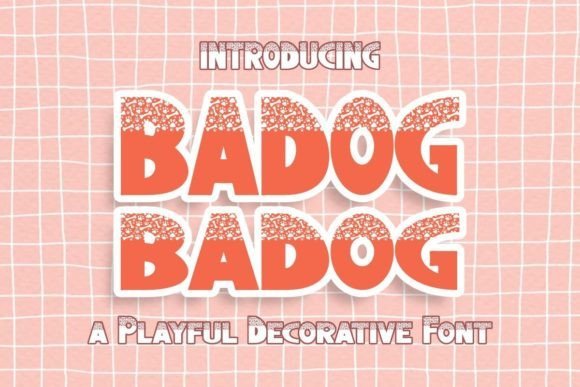
Unleash Your Creativity with Badog Font
Have you ever stared at a blank canvas, waiting for inspiration to strike? Maybe you’re a designer looking for the perfect font to bring your latest project to life. I know I have! For me, it usually starts with a burst of creativity sparked by something as simple as a cute dog video or a friend’s adorable pup. The idea hits, and suddenly I’m on a mission to create something amazing.
That’s where the Badog Font comes in – a vibrant and bold decorative font that’s sure to capture the hearts of dog lovers everywhere. Its unique, partially paw pattern makes it the paw-fect choice for designers looking to add a touch of whimsy to their designs. Whether you’re printing on shirts, mugs, or creating digital art, Badog Font is a valuable addition to your design arsenal.
Badog Font Key Features
- Unique Characteristics: The font features a unique blend of modern and vintage elements, with distinctive letterforms and a highly legible design.
Badog Font Review
As a designer, I’ve had the chance to play around with Badog Font, and I must say it’s an interesting one. ✨ The font’s unique blend of modern and vintage elements caught my attention, and I think it could work well in certain contexts.
- ✨ The font’s bold and playful feel makes it perfect for titles, headings, or other emphasis-based typography.
- ✨ The subtle texture and imperfections give the font a human touch, which can add character to your designs.
- ✨ The font is highly customizable, allowing you to tweak the size, color, and other properties to fit your design needs.
- ⚠️ The font’s readability can be a concern in smaller sizes, as the bold lines and texture may become overwhelming.
- ⚠️ The font’s aesthetic may not appeal to everyone, and it’s not suitable for formal or professional designs.
- ⚠️ The font is not optimized for certain languages, which may result in alignment and spacing issues.
While Badog Font has its limitations, I think it’s a great option for designers who want to add some personality to their projects. With careful selection and customization, this font can shine in the right context. However, it’s essential to consider the target audience and design requirements before using it.
Tips for Getting the Most Out of Badog Font
To get the most out of Badog Font, use it in bold and italic styles to add emphasis to your text. You can also use it in combination with other fonts to create a unique and modern look.
For best results, use Badog Font in headings and titles to draw attention to important information.
Badog Font is suitable for:
- Modern branding and logos
- Business cards and resumes
Alternatives to Badog Font for Designers
Monserrat Font is a sans-serif font that was designed to evoke the feeling of urban landscapes. It’s a great alternative to Badog Font for designers who need a clean and modern look. Montserrat Font has a similar geometric feel to Badog Font but with a more rounded edge. It’s perfect for use in headings, titles, and body text in modern designs.
Lato Font is a modern sans-serif font that was designed to be highly legible and versatile. It’s a great alternative to Badog Font for designers who need a font that works well in a variety of contexts. Lato Font has a similar feel to Badog Font but with a more rounded and friendly appearance. It’s perfect for use in body text, headings, and titles in modern designs.
Open Sans Font is a modern sans-serif font that was designed to be highly legible and versatile. It’s a great alternative to Badog Font for designers who need a font that works well in a variety of contexts. Open Sans Font has a similar feel to Badog Font but with a more open and airy appearance. It’s perfect for use in body text, headings, and titles in modern designs.
Is the Badog Font optimized for web use?
Yes, the Badog Font is optimized for web use, featuring a high level of legibility and readability on various screen resolutions and devices. It also supports Unicode characters, ensuring compatibility with languages from around the world. This makes it an excellent choice for web designers and developers looking to create engaging and user-friendly interfaces.